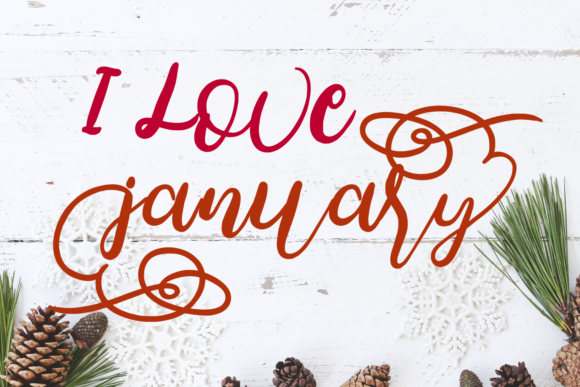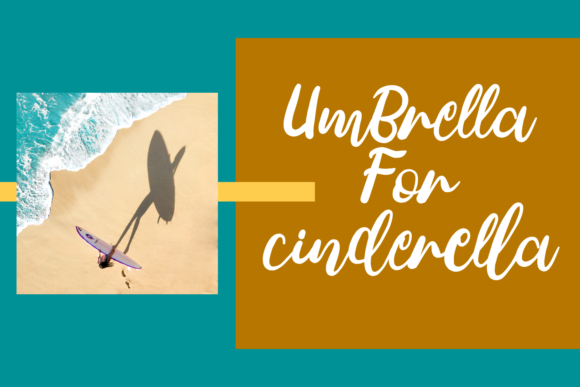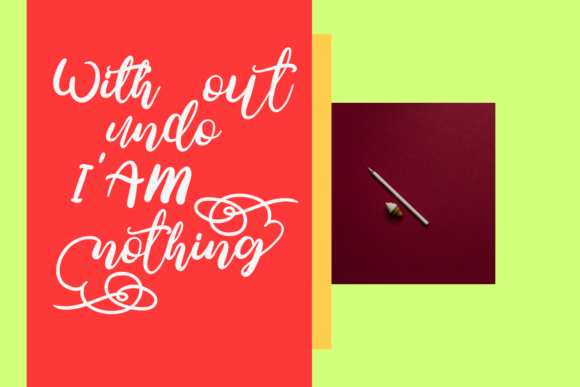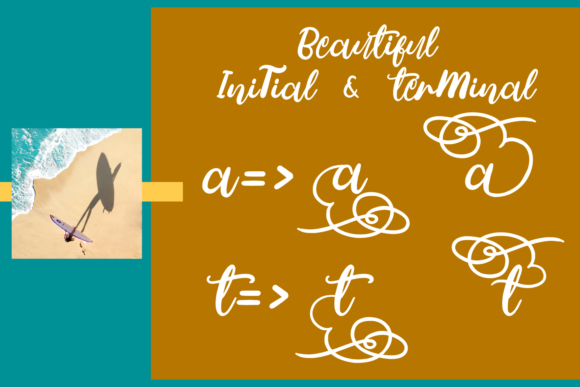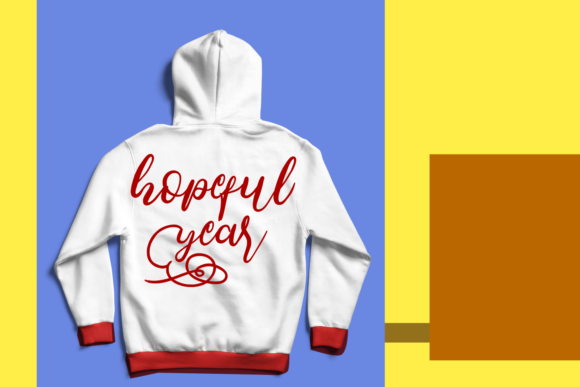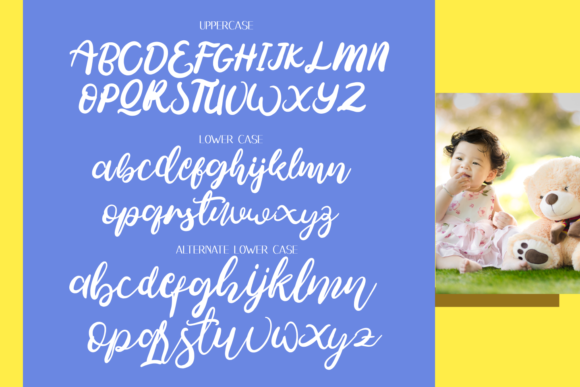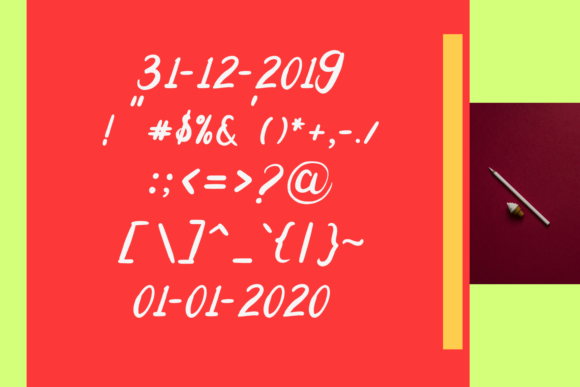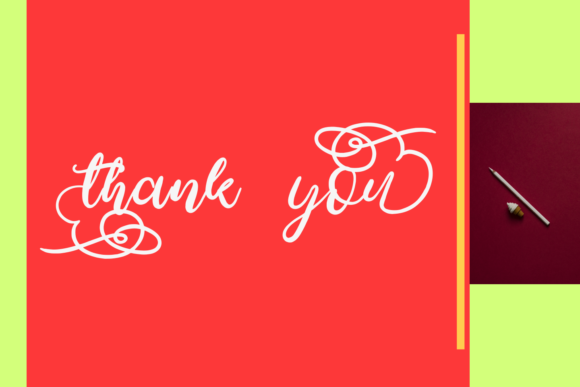
I Love January Font
I Love January is a bouncy and charming calligraphy font that’s great for any crafting idea. Ignite your creativity with its gorgeous set of PUA-encoded swashes!